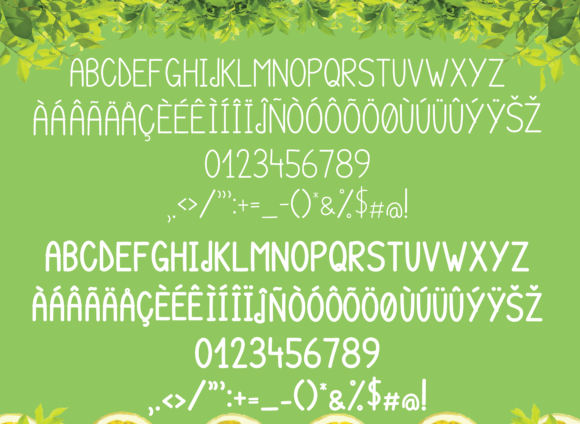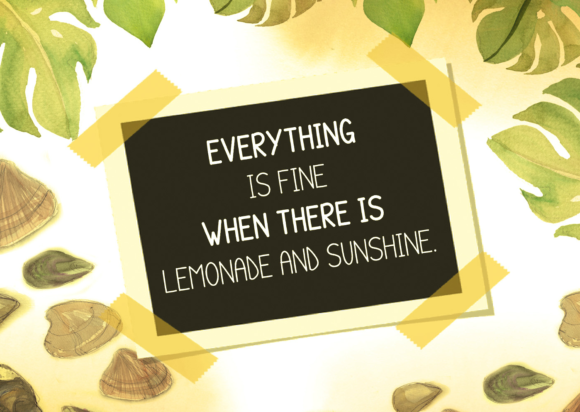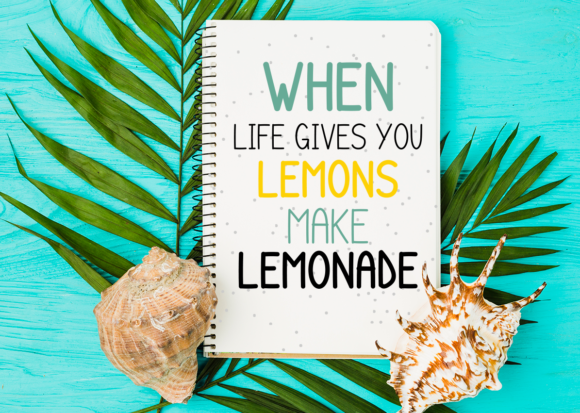
Introduction to Skinny Lemonade Font
Do you remember that moment when you stumbled upon the perfect font for your creative project? The one that instantly elevates your design and makes it stand out from the crowd? For designers, finding the right font can be a game-changer, and that’s exactly what the Skinny Lemonade Font offers.
As a high-quality design resource, Skinny Lemonade Font is a sweet and simple handwritten font that’s perfect for adding a touch of whimsy to your designs. With its adaptable style, it’s easy to use in a variety of creative projects, from social media graphics to wedding invitations. Whether you’re working on a free download or a paid project, this font is sure to bring a smile to your clients’ faces.
With its transparent background and cute, full-of-life style, the Skinny Lemonade Font is a valuable addition to any designer’s toolkit. In this article, we’ll take a closer look at what makes this font so special and how you can use it to elevate your designs.
Key Features of Skinny Lemonade Font
- Unique and playful design: The Skinny Lemonade Font is a high-quality design resource perfect for creative projects that require a touch of whimsy.
- Transparent background: This font features a transparent background, making it ideal for use on images, logos, and other design elements.
- Unique font style: The Skinny Lemonade Font features a unique and creative font style that is perfect for adding a touch of personality to your design project.
Honest Review: Skinny Lemonade Font
I recently had the chance to work with the Skinny Lemonade Font, and I’m excited to share my thoughts on this design resource.
- ✨ Transparent background option: This allows for seamless integration with various design elements.
- ✨ Customizable: The font can be easily modified to fit the specific needs of your project.
However, there are a few limitations to consider. ⚠️ The font may not be suitable for projects that require a more formal or traditional look. Additionally, the font’s unique design may not be to everyone’s taste.
Overall, I’m impressed with the Skinny Lemonade Font. Its high quality, creative potential, and free download make it a valuable design resource. While it may not be perfect for every project, it’s definitely worth considering for your next creative venture.
Use the Skinny Lemonade Font in your creative project to add a unique touch.
Combine it with other design resources for a cohesive look.
Take advantage of its transparent background to create a seamless design.
Use the Skinny Lemonade Font in:
1. Social media graphics.
2. Blog posts and articles.
3. Marketing materials and brochures.
4. Web design and development projects.
Alternatives to Skinny Lemonade Font